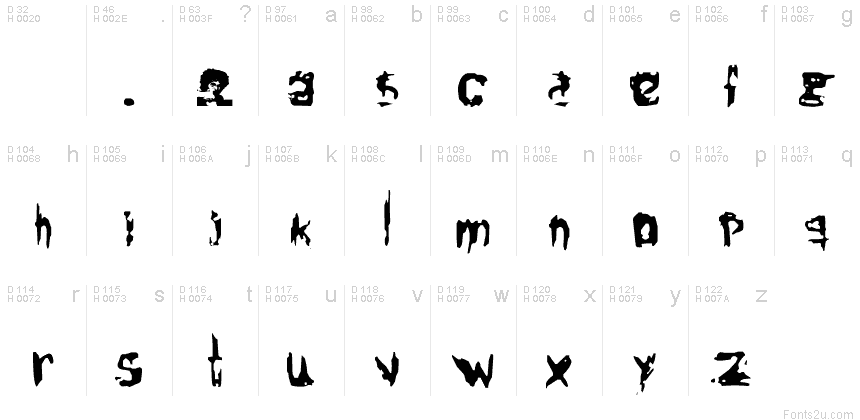
Electric Chair
Electric Chair font by Mike Larson aka Mr. Fisk is a free distorted display typeface that looks like it’s been ripped from a splattered horror poster. The letters feel scorched and melted at the edges, with jagged gaps and inky clumps that give every word a raw, unstable energy. It reads like a scream scratched onto a wall, messy but unmistakable from a distance.
Using Electric Chair, you can push horror movie titles, Halloween flyers, metal or punk album covers, game logos, escape room branding, and creepy YouTube thumbnails into genuinely unsettling territory. This free font works best at larger sizes, where the torn edges and irregular silhouettes can breathe; pair it with a clean condensed sans serif for small supporting text so the chaos stays where you want it—right in the headline.